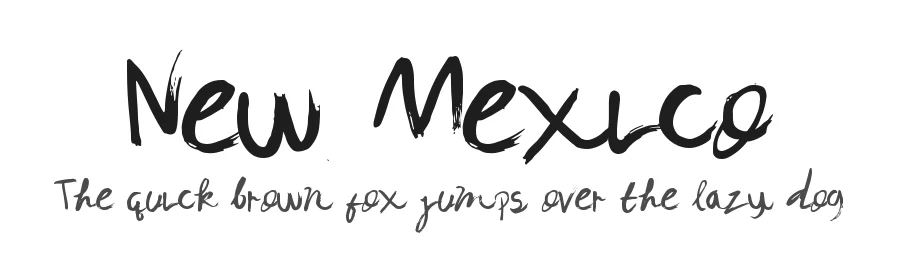
About All Hail Julia Font
All Hail Julia is a script & handwritten font designed by Denne. It includes 235 glyphs, a regular weight, TTF (TrueType) format, and 193 languages. All Hail Julia is free to download; check the license details on this page before commercial use. Script & handwritten fonts like All Hail Julia work best for wedding invitations, greeting cards, signatures, and elegant branding.
All Hail Julia Font is a script font that shines as a display or heading face. Pair it with a clean sans-serif or serif font for body text β the contrast creates a clear hierarchy while the two styles stay balanced and easy to read.
All Hail Julia Font